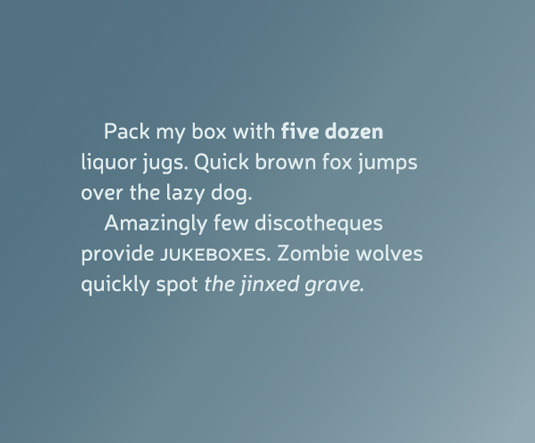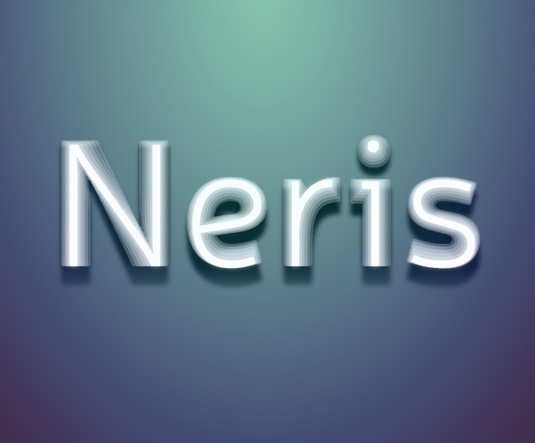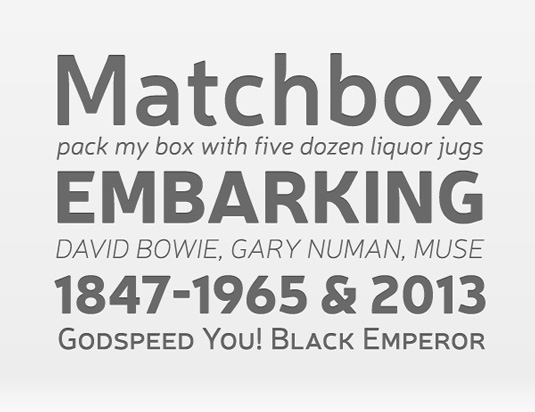
Font of the day: Neris
Neris by Eimantas Paškonis
Today's font of choice is this display sans Neris, by Lithuanian type and graphic designer Eimantas Paškonis. "Neris is the name of my city's river," he comments. "While it doesn't really translate into anything meaningful, it looks good in both Lithuanian and English while showcasing most of the distinct features: slanted /e, semi-serif /i, stylised ink traps, curved sharp joints."